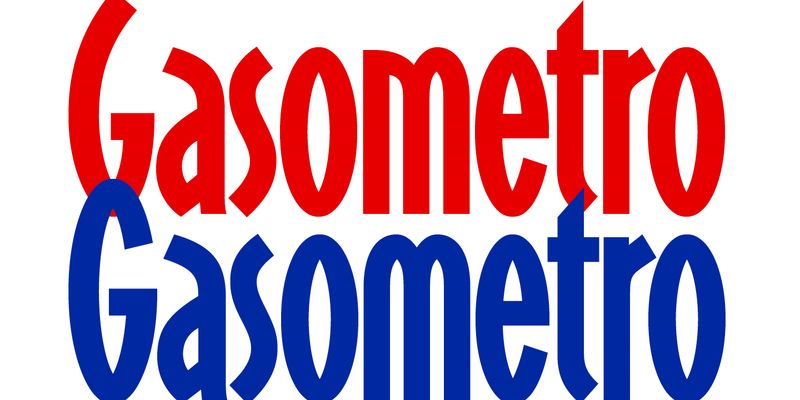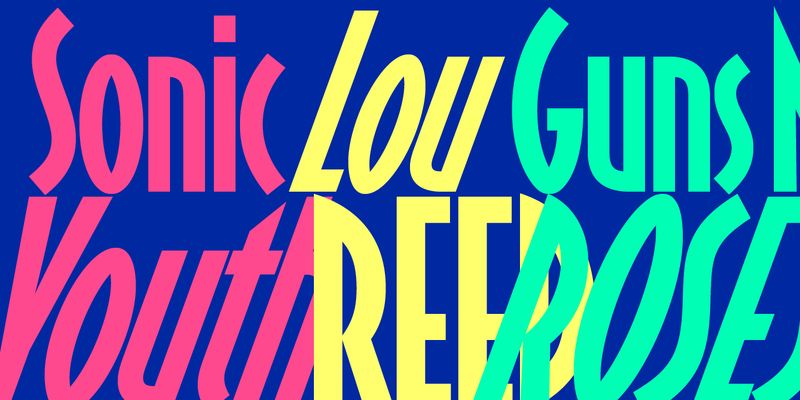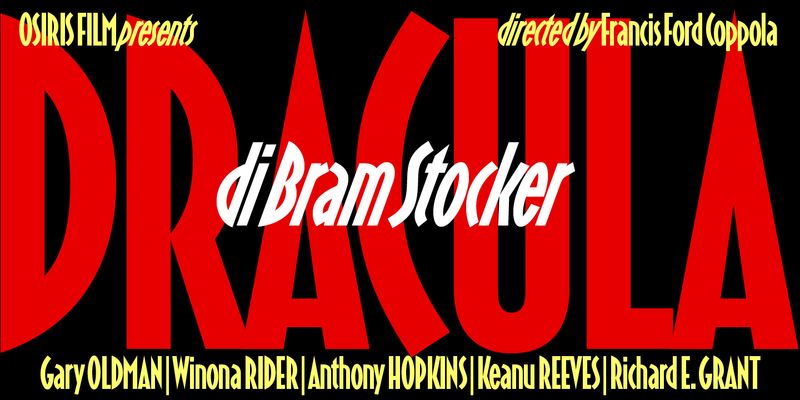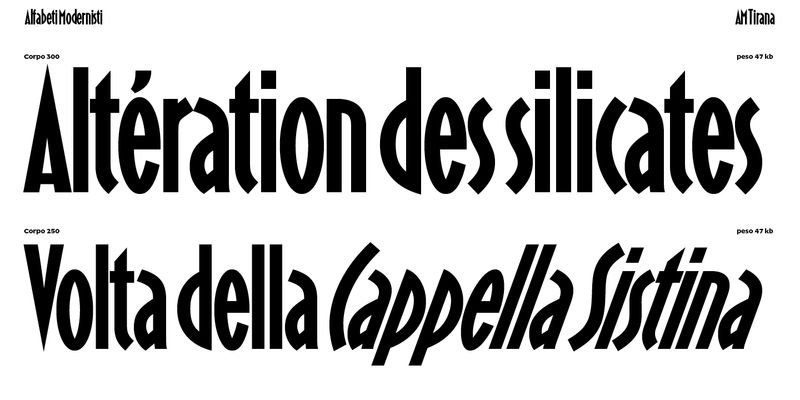
Tirana is a condensed geometric sans with caps and lowercase. It is rich in colour, with a geometric flavour and sharp details. It has a large x-height, low contrast, and very open apertures. Some of the letterforms come from classic modernist lettering, such as the exceedingly open C and S, or the pointed A and N. However, the design is defined by its treatment of spurs and joints, which are either squared or closed at a sharp angle, and its lenticular and lemon-slice counters.
Tirana was a wood type cut by Xilografia Italiana, a company operating at Badia Polesine (Veneto region, between Verona and Rovigo), most likely between 1938 and 1941. It was released in several body sizes ranging from 4 to 30 lines (roughly 50 and 380 points), and Xilografia Italiana also sold a slanted version of Tirana under the name of Corsica.
The two original designs have been reunited as a family: Corsica, with its dramatic 20º slant, lives on as AM Tirana’s italic. Regarding references and models, the designer Leo Philp says: ‘I haven’t seen anything with Tirana and Corsica’s crowd of features before. Some can be found in other typefaces: the spurless n, m, u in Dax and its successors, the sharp join of bowl and stem is echoed (much less severely) in Cyrus Highsmith’s Relay. I haven’t seen the sharp, lenticular counters in a sanserif typeface, but I have seen similar forms in letters cut into wood with a router.’
‘Many of my changes feel like necessary adjustments for a wood type’s translation into a digital font,’ remarks Philp of the AM Tirana digital revival. ‘I made optical corrections, the weight of upper and lowercase characters more consistent, and gently harmonised them and the shapes within them. Tirana’s terminals, sometimes oblique, sometimes sheared, were made more systematic, and some characters were redrawn.’
Most of AM Tirana’s OpenType features are derived from their wood type source. For tightly leaded all-caps settings, there are raised dashes, guillemets, @, and more compact parentheses. Stylistic sets preserve alternate characters originally available with the type: the large-countered 6 and 9 and the more conventional ‘closed’ C and G (to which a companion lowercase c has been added); the original ampersand has been kept. To these alternates have been added rounded variants of the u, m and w.
OpenType Features:
Case sensitive dashes, parentheses, guillemets and @
ss01 – Closing C, G, c
ss02 – Round bottomed u
ss03 – Rounded m, w
ss04 – Original alt 6, 9
ss05 – Original ampersand